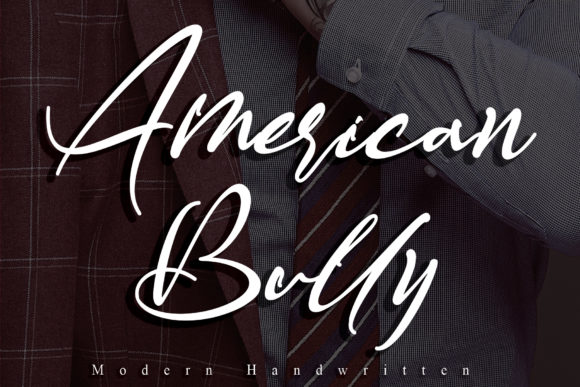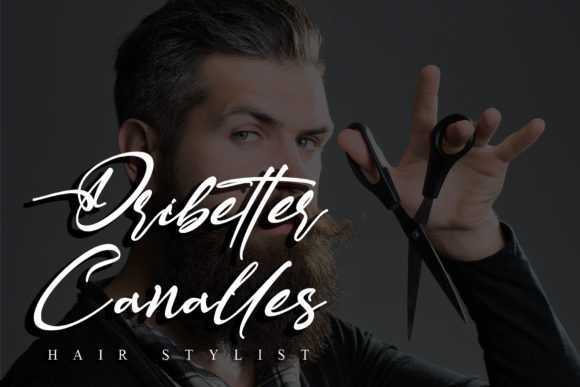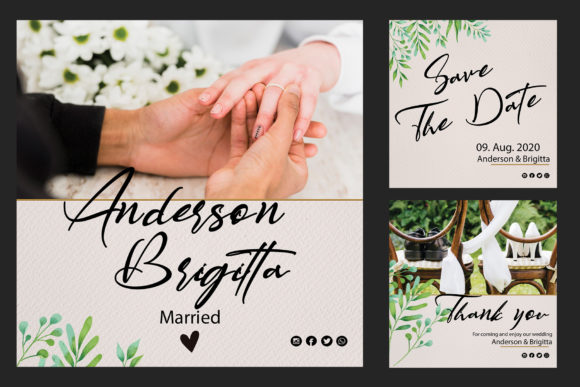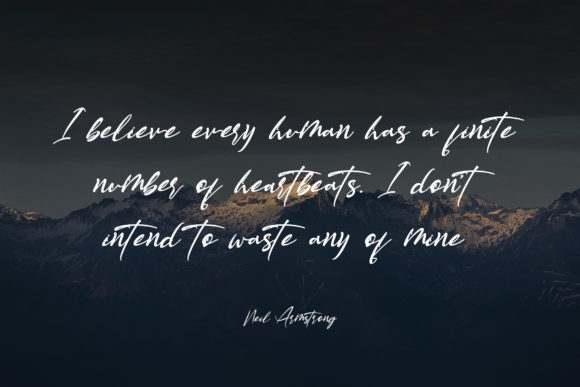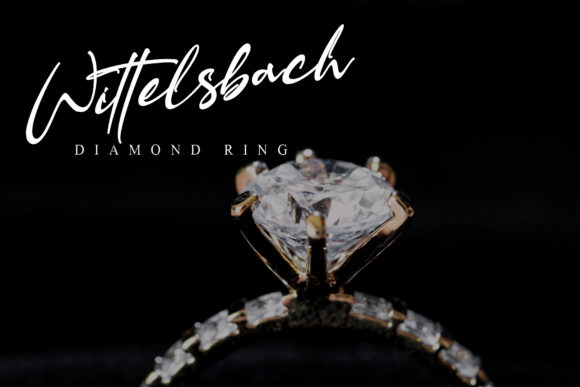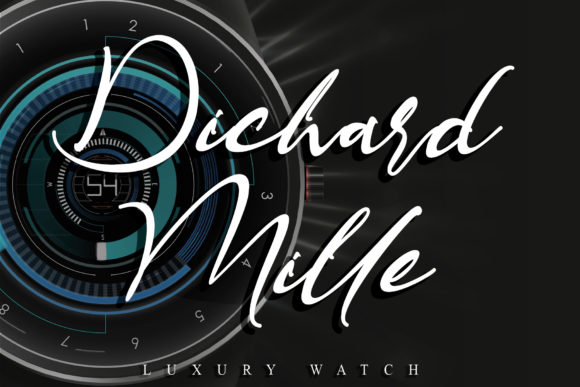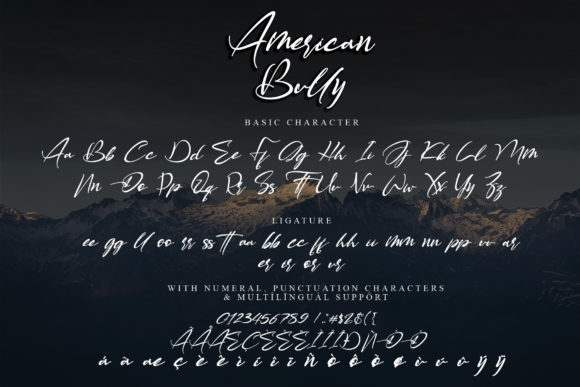
American Bully Font
About American Bully Font
American Bully is a magical handwritten font carefully created with a touch of elegance. This enchanting font will turn any creative idea into a true standout. Get creative with its unique look, and use it to brighten up any crafting project.